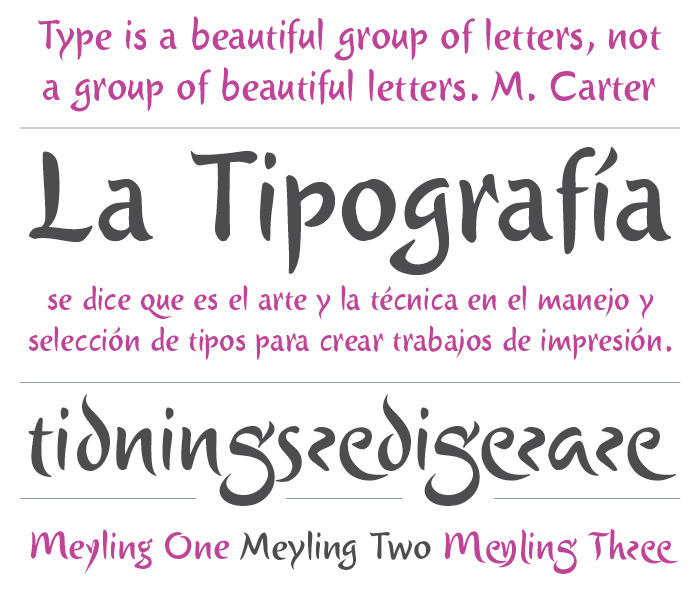
Joao Henrique Lopes
Ananindeua, Brazil-based creator (b. 1986, Brazil) of FontForum Giureska (2012), a blackletter / uncial family published by URW, and of Styla Pro (2013), a flared typeface also published by URW, and advertized as a romantic sans influened by Bodoni.
Lucca (2013) is a flared humanist sans typeface that was inspired by Italian Renaissance fonts like Poliphilus, Blado, Centaur and Arrighi.
Typefaces from 2015: Pleiad (seven interchangeable scripts published by URW++: Pleiad Alcyone, Pleiad Celeno, Pleiad Electra, Pleiad Maia, Pleiad Merope, Pleiad Sterope, Pleiad Taygete).
Typefaces from 2017 at URW++: Meyling (emulating painted letters, or perhaps an oriental brush).
Typefaces from 2020: Slazer (futuristic, sci-fi).
Author of Elements of Manga Style.